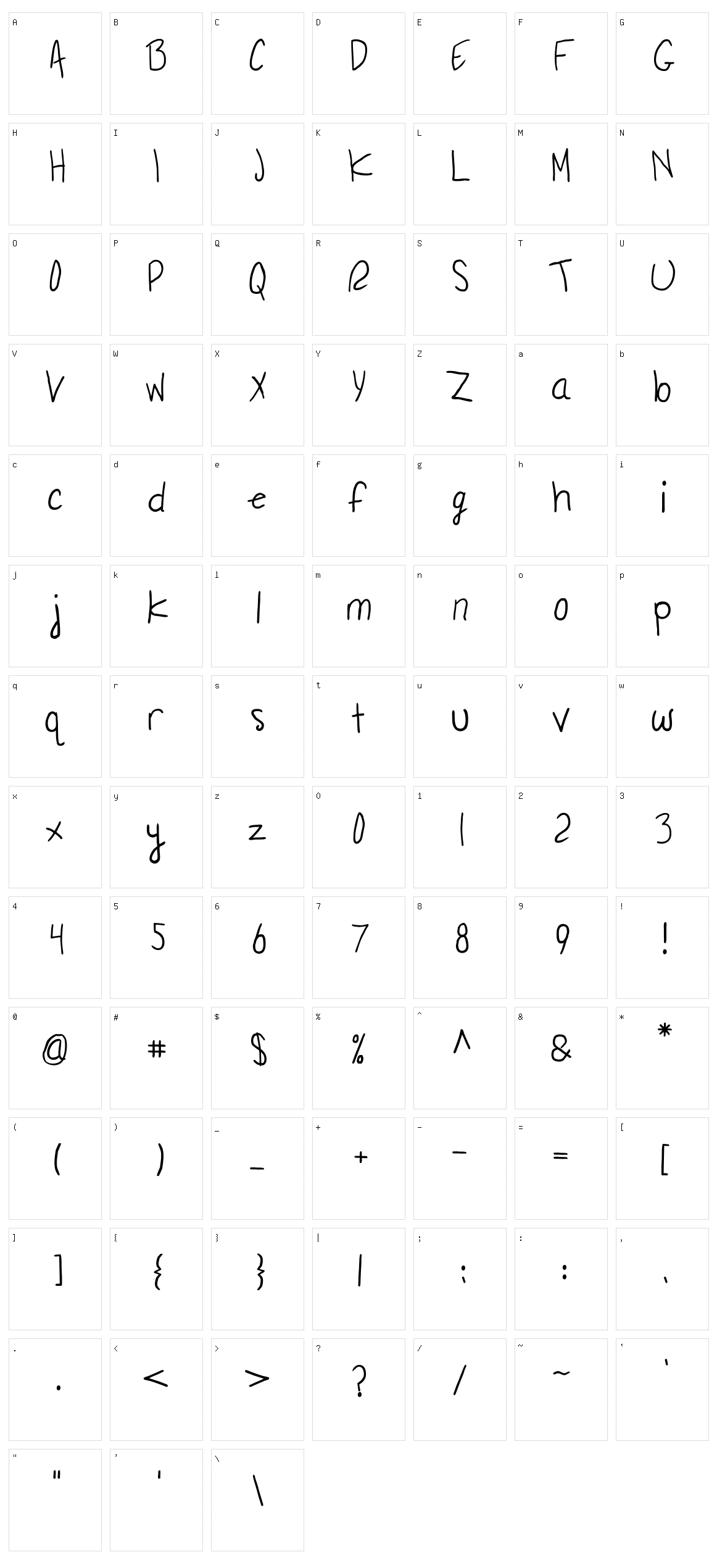
The free font Raila Skies is carefully designed by Dismantle Destroy, showcasing a thoughtful balance of creativity and usability and falls under the Script font style. When you download the ZIP file, it contains only 38.91 KB of font files, making it lightweight and quick to download. Please review the license details below to understand permitted usage and distribution rights. If license information is not available, we recommend using this font for personal projects only or contacting the author directly for commercial usage permissions.